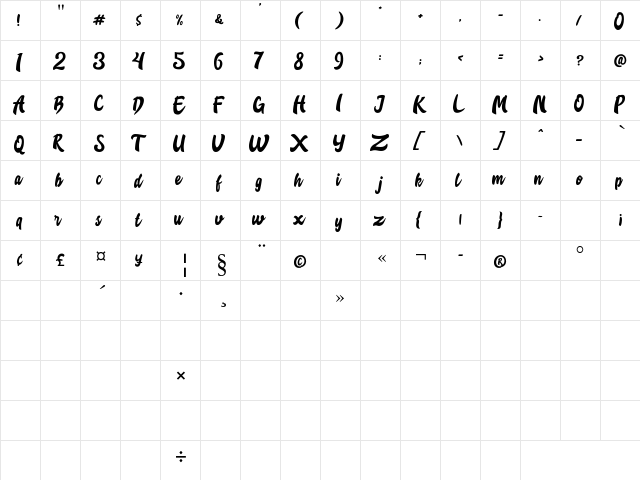
Creasi Script Regular
| Designer | Rudhi Sasmito |
Design Context for Creasi Script Typeface
Creasi Script brings a calligraphic fluidity to the page — its connecting strokes and expressive curves give it an unmistakably human quality.